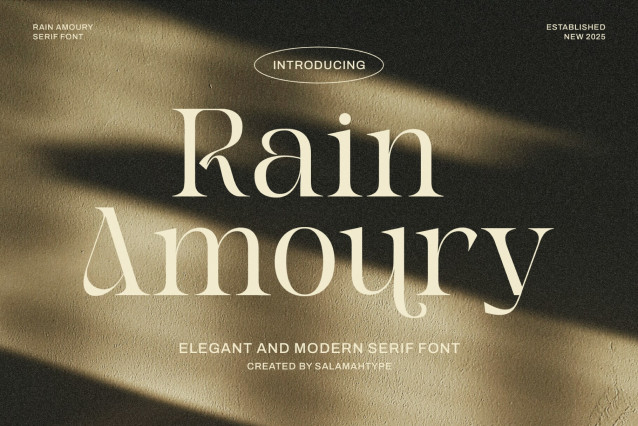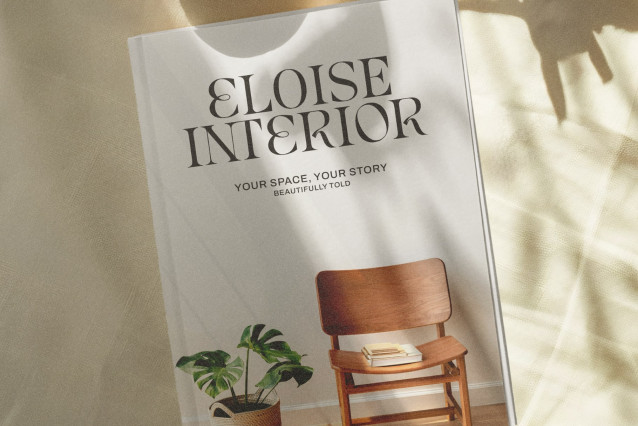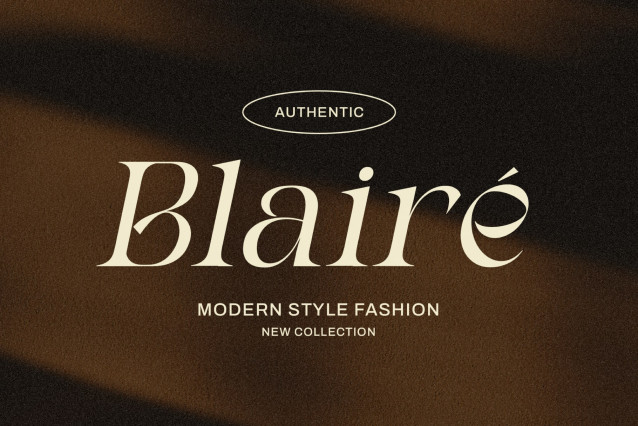
Rain Amoury – Beauty Logo Font
Rain Amoury is a sleek, stylish serif font that’s perfect for logos, weddings, beauty brands, fashion, and more. With smooth curves, fancy details, and an oblique version, it makes any project look polished and high-end.
Designer Name: salamahtype